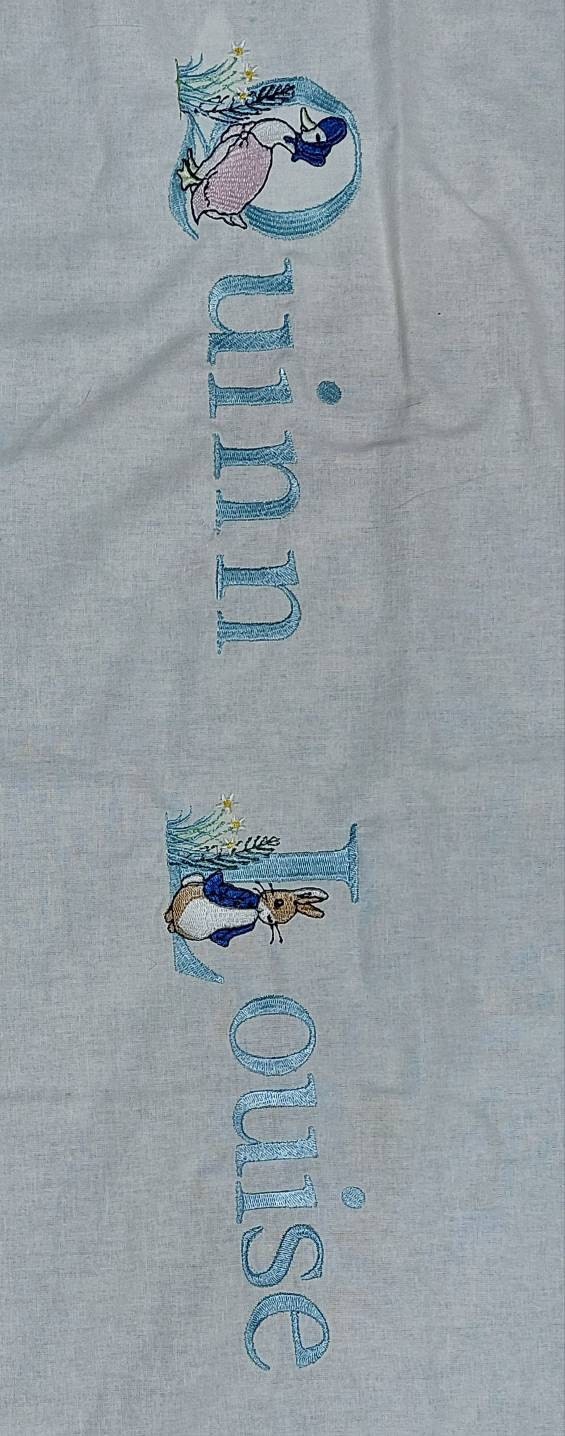
Stitched out lovely. This is going to be sampler for my new grandaughter. I have OCD hence this is first run so I can see where to close the gaps better if needed. Was a wee bit disappointed to see some letters are not the exact height as others but it is very minimal (more likely my OCD kicking in), someone else may not see it all.